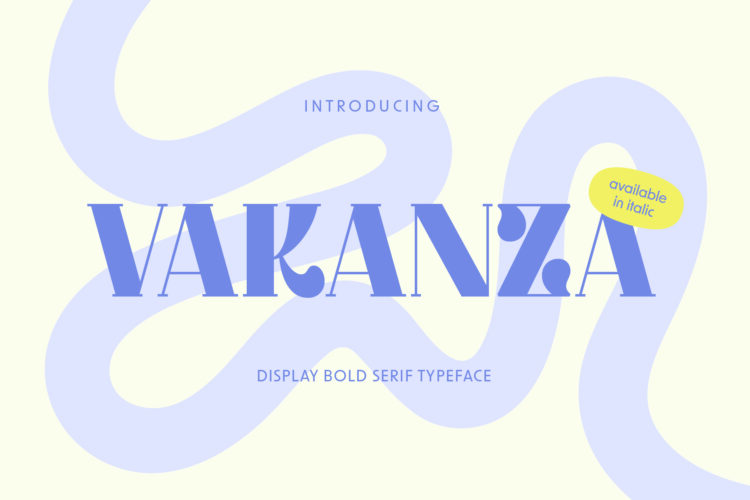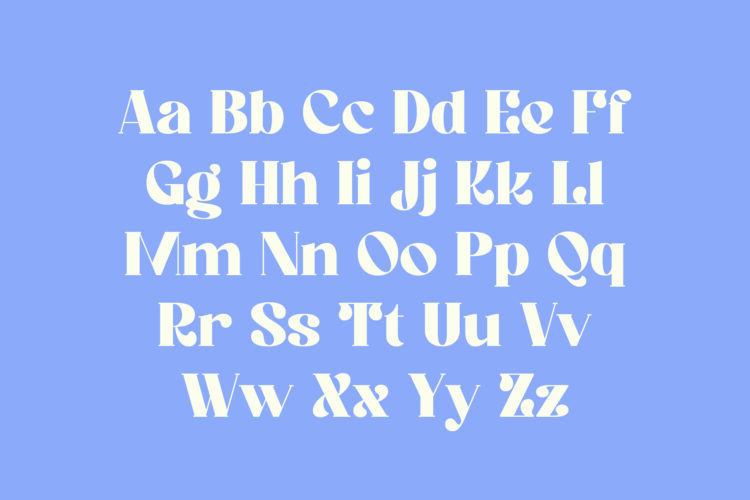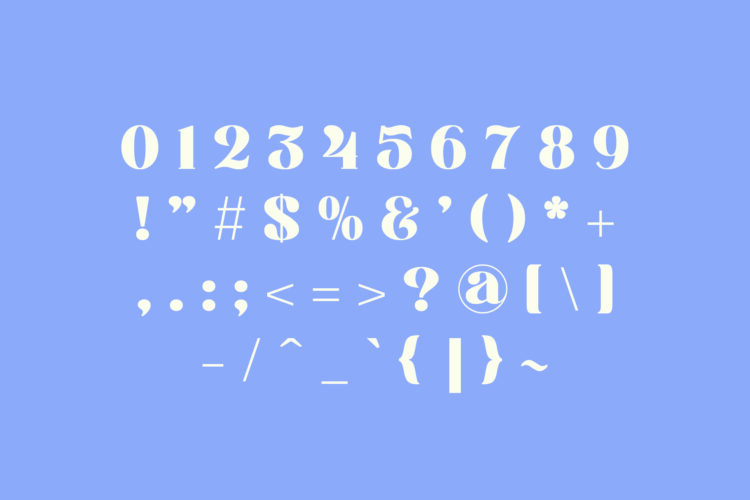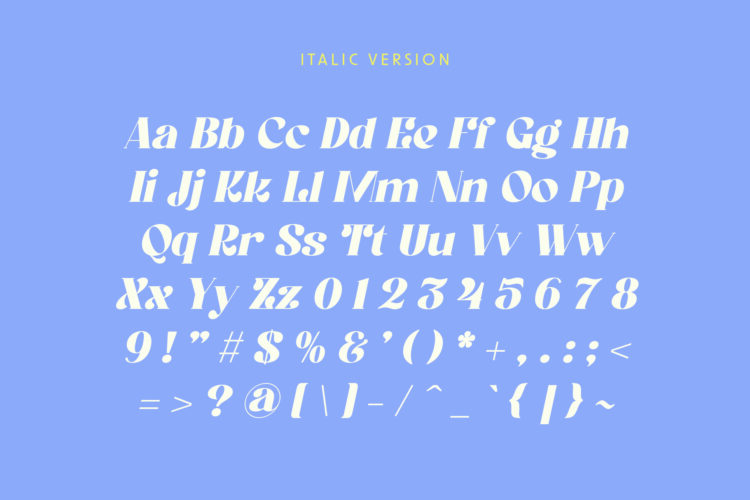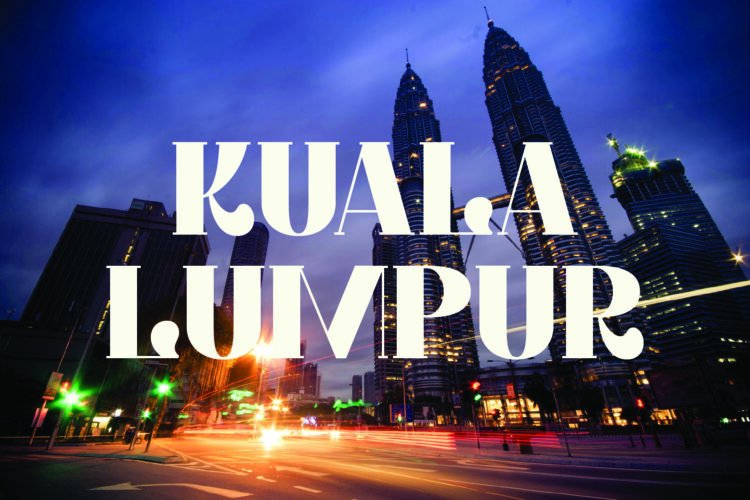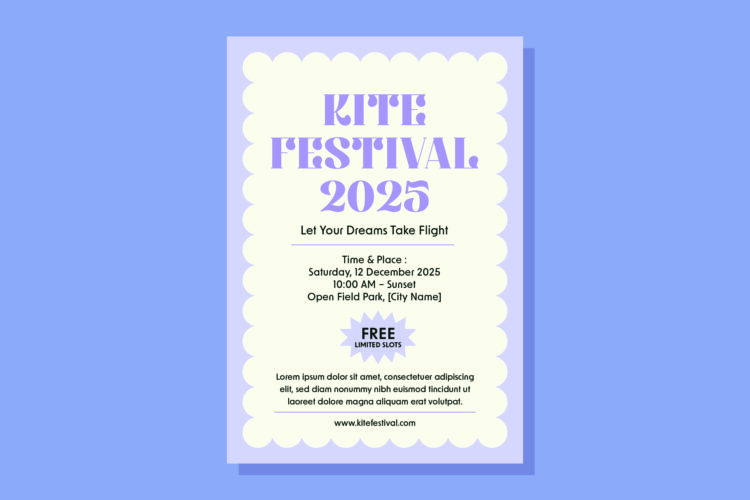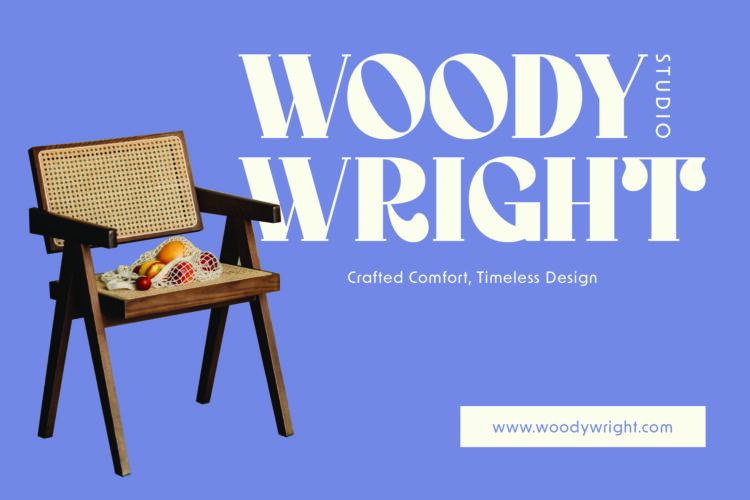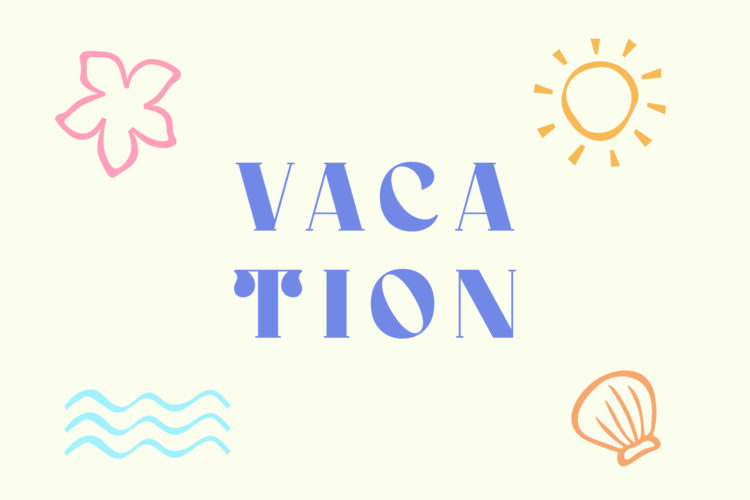
Step back in time with Vakanza, a bold and elegant retro serif display font. It adds vintage charm to every project. It works well for posters, festivals, greeting cards, merchandise, packaging, magazines, and more. The design feels classic yet fresh. Its thick, stylish look makes each piece stand out with timeless elegance.
Vakanza gives you all letters A–Z, numbers, and basic punctuation. It also includes italics for each character. These features let you play with different styles without needing extra fonts.
Vakanza – Bold Serif Font